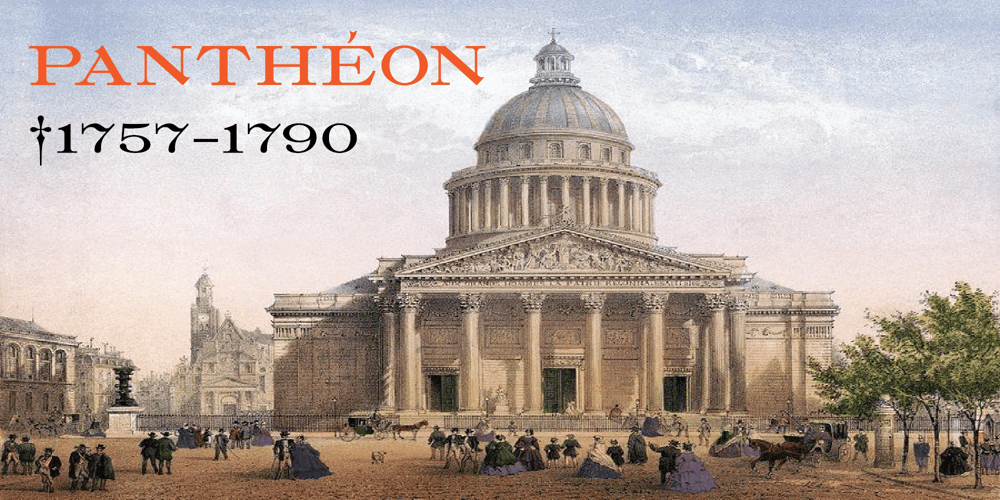
Pantheon V
Pantheon V font
Pantheon V Font Family was designed by Jawher Matmati and published by Jawher Matmati. Pantheon V contains 2 styles and family package options. Pantheon V is a revival, designed by Jawher Matmati, of a typeface that was popular in French publications in the first half of the 20th century, particularly among music publishers like Durand. Its design exhibits features of the Old Style Extended typeface, which was introduced towards the late 19th century. It is primarily designed for titling.As the style name suggests, Pantheon V Sharp is a variant with clear-cut serifs and strokes, whereas Pantheon V Regular is a more organic rendering that incorporates natural artifacts like ink bleed.